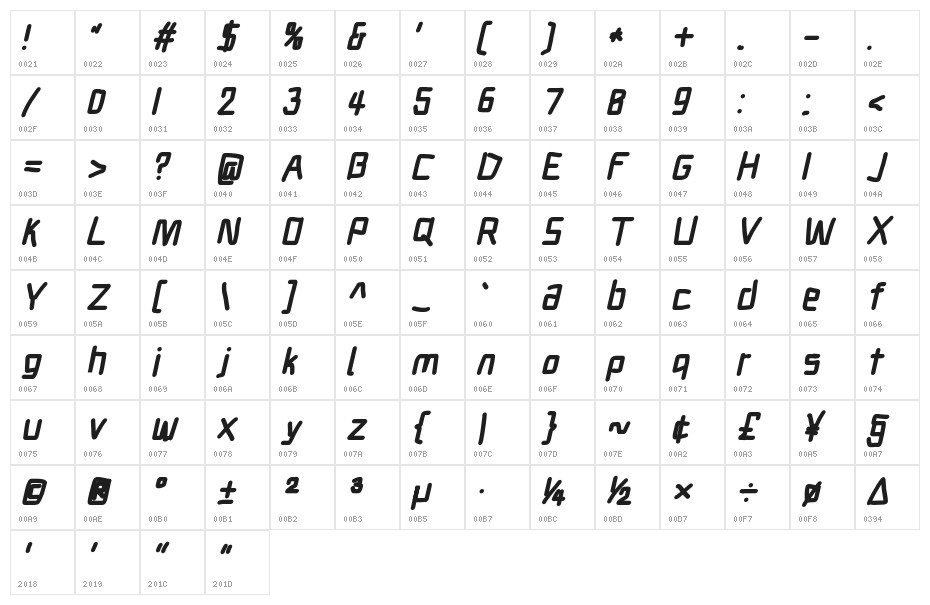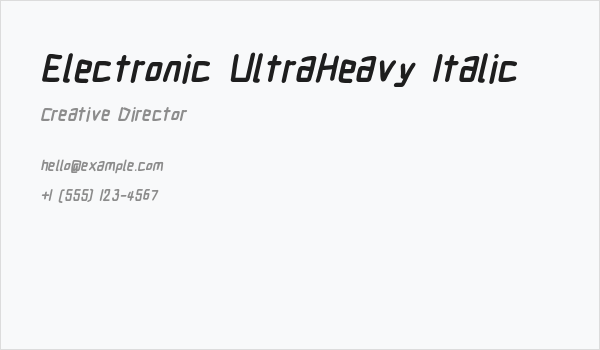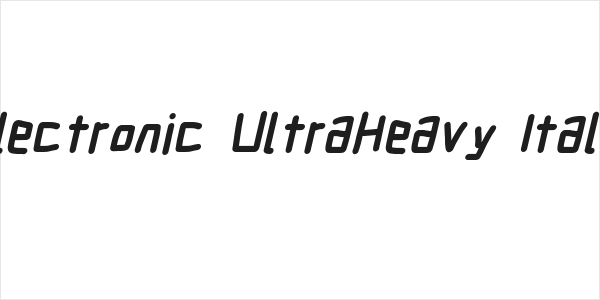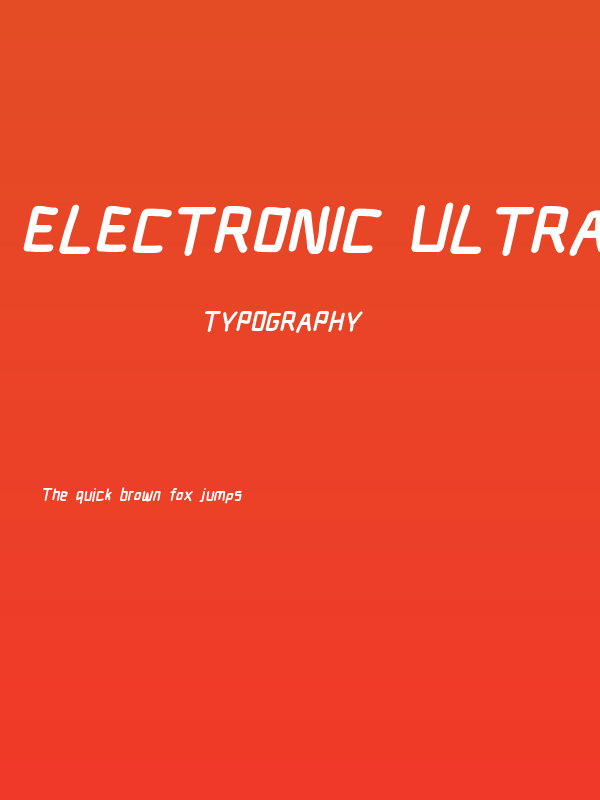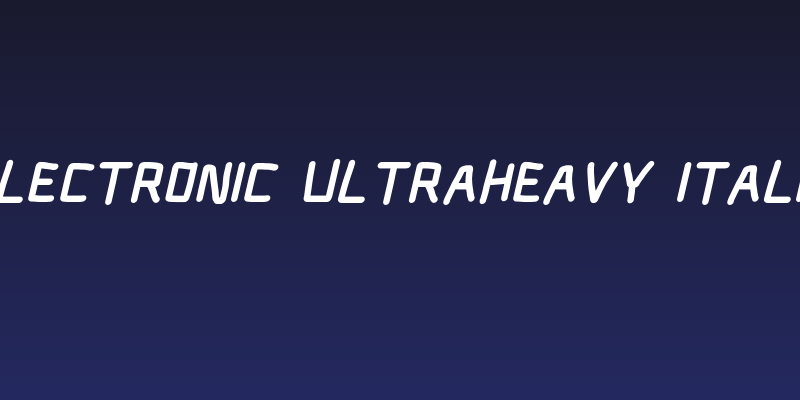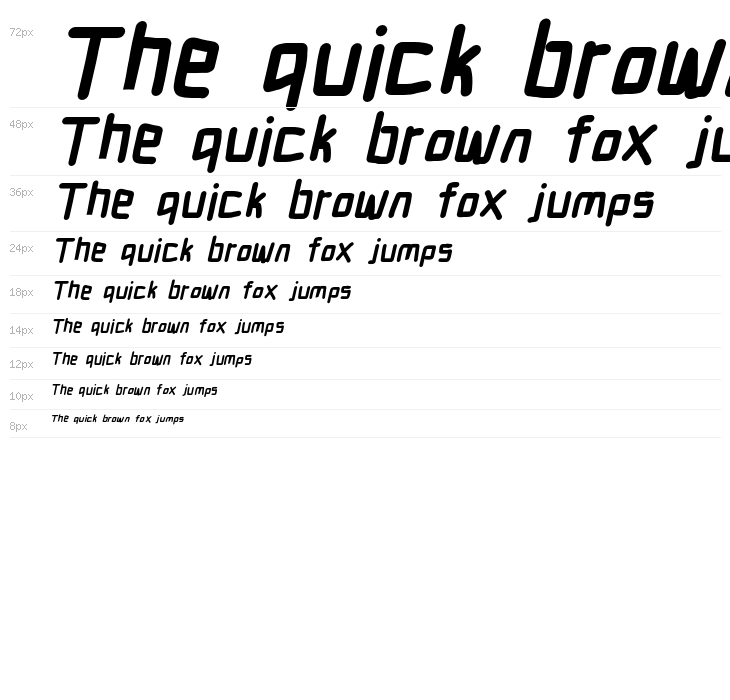
Electronic UltraHeavy Italic Font
Electronic UltraHeavy Italic Description
This font presents a bold and dynamic style with an italic slant, giving it a sense of movement and energy. The characters are thick and robust, with a consistent stroke width that conveys strength and stability. The uppercase and lowercase letters maintain a uniform appearance, while the numbers and special characters are designed to match the overall aesthetic. The font's design is modern and slightly futuristic, making it suitable for projects that require a strong visual impact.
| Use Case | Logos, Headlines |
| Proposed Projects | Ideal for sports branding, tech company logos, and dynamic advertising campaigns. |